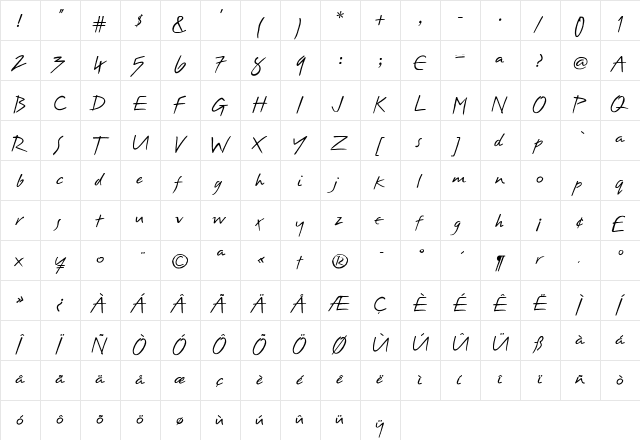
Erazure Regular
Design Context for Erazure Typeface
Erazure is a composed and adaptable typeface that performs quietly and consistently across a wide range of design contexts.